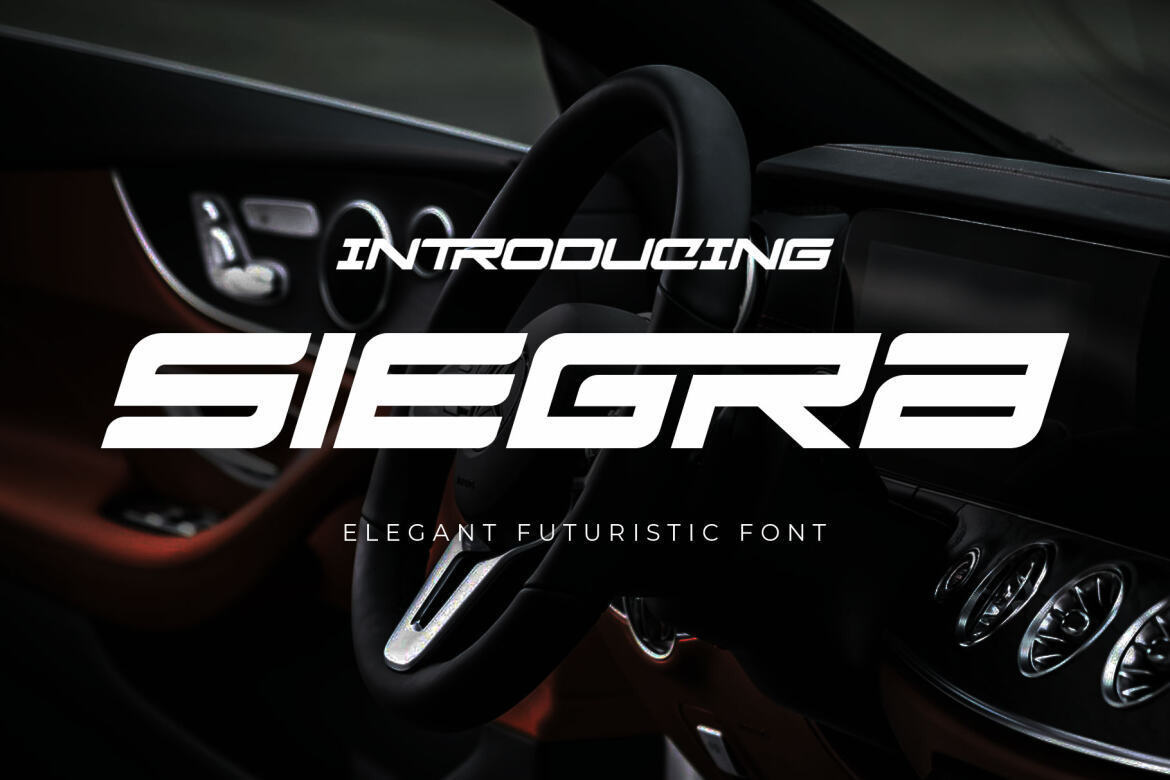
Siegra is a cool combination of powerful, sporty, automotive, elegant, and futuristic. One of kind techno font that versatile to apply in various design styles.deeezy.com/product/34171/siegr…